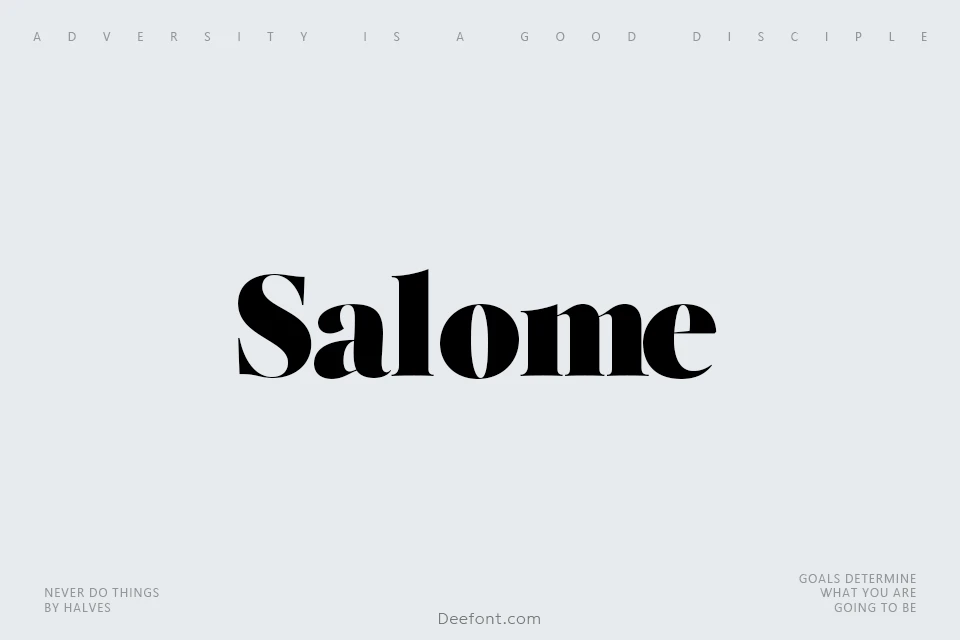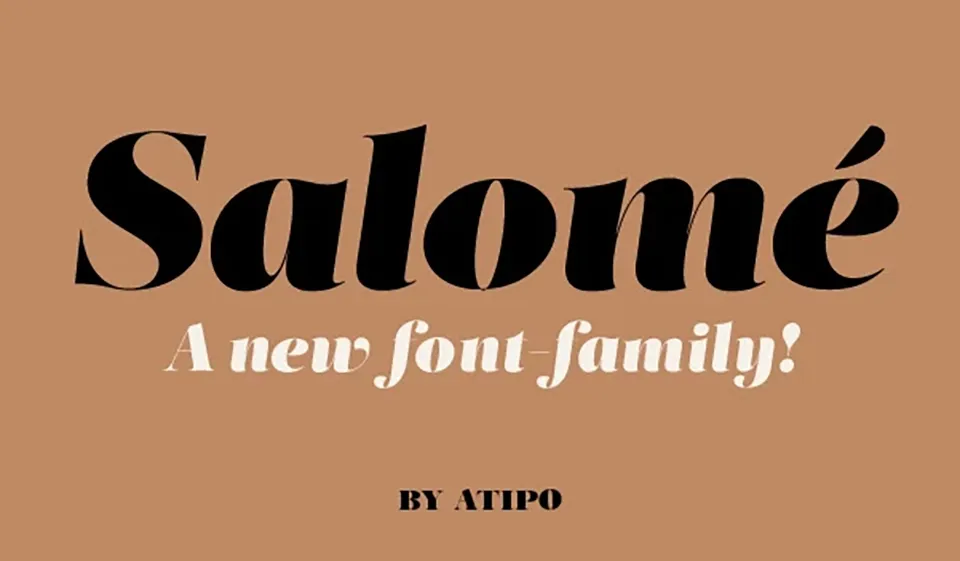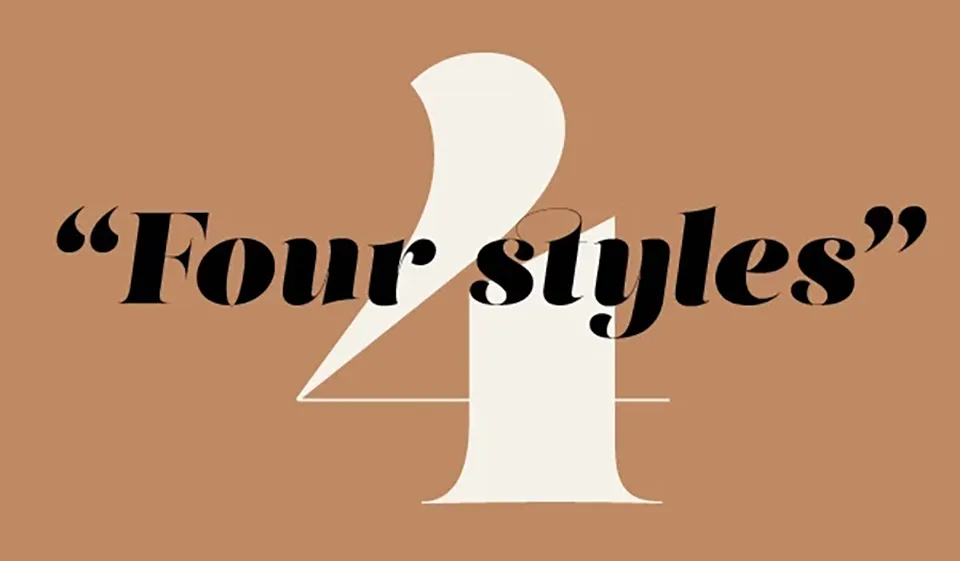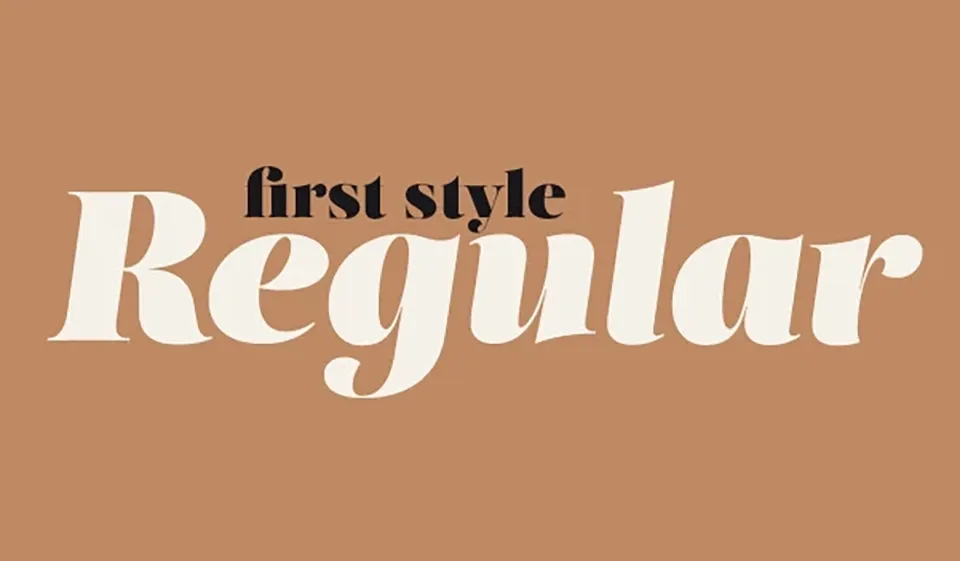
Salome Font
Salome Font is a striking display typeface designed with a strong Art Nouveau influence, featuring dramatic curves, high contrast, and elegant swash characters. It offers standard and discretionary ligatures, stylistic alternates, case-sensitive forms, true small capitals, and a wide range of numeral options including lining and oldstyle figures. Salomé supports extensive language coverage and is ideal for expressive headlines, branding, and editorial design.